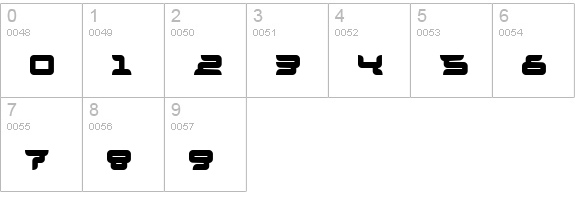
Granolae Heavy Font Details
Granolae Heavy is a heavy, high-impact variant in the Granolae typeface family \xE2\x80\x94 well suited to high-impact headlines, posters, and display advertising.
Granolae Heavy is a bold and impactful display font that commands attention with its strong and commanding presence. With thick, sturdy letterforms and a touch of ruggedness, this typeface exudes a sense of power and authority. Perfect for headlines, posters, and branding projects that require a bold statement, Granolae Heavy stands out from the crowd with its unique character and undeniable presence. And the best part? Granolae Heavy is completely free to download at FontsMarket.com. Yes, you read that right! You can easily access this impressive font at no cost, making it a valuable addition to your design toolkit without breaking the bank. Don't miss out on this opportunity to elevate your projects with the striking Granolae Heavy font - download it now and unleash its full potential in your designs!